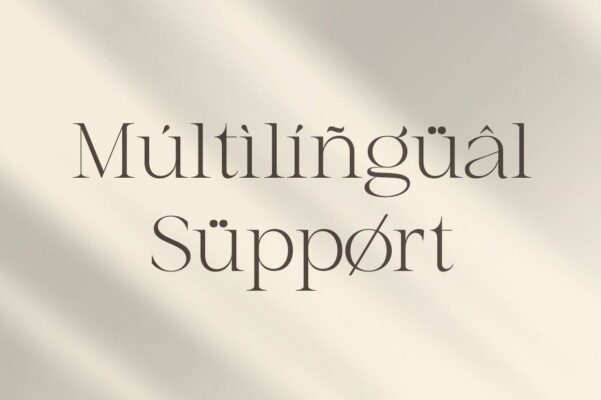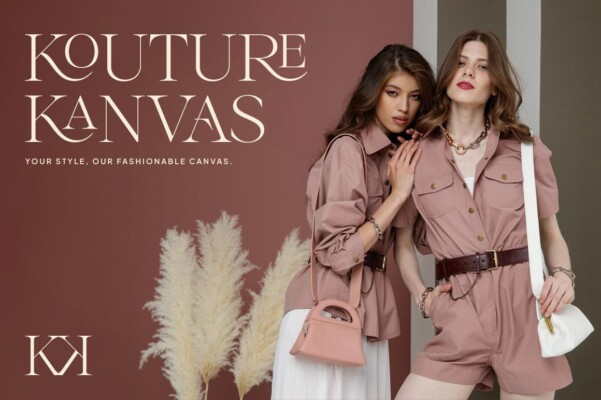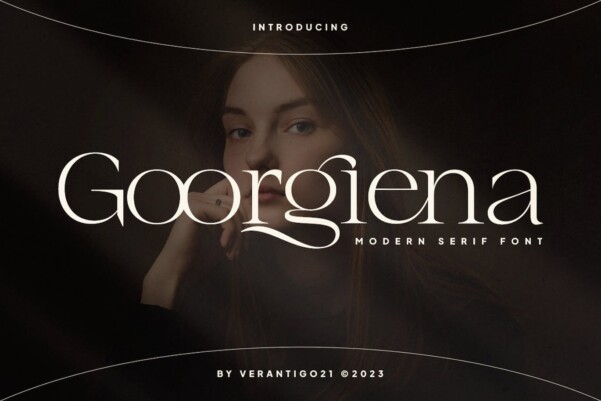
Goorgiena Font
Goorgiena Font is inspired by famous logos. It is simple but elegant and has been manufactured with precision and measure. It’s perfect for logos and branding, photography, invitations, watermarks, advertisements, product designs, stationery, wedding designs, labels, product packaging and much more!